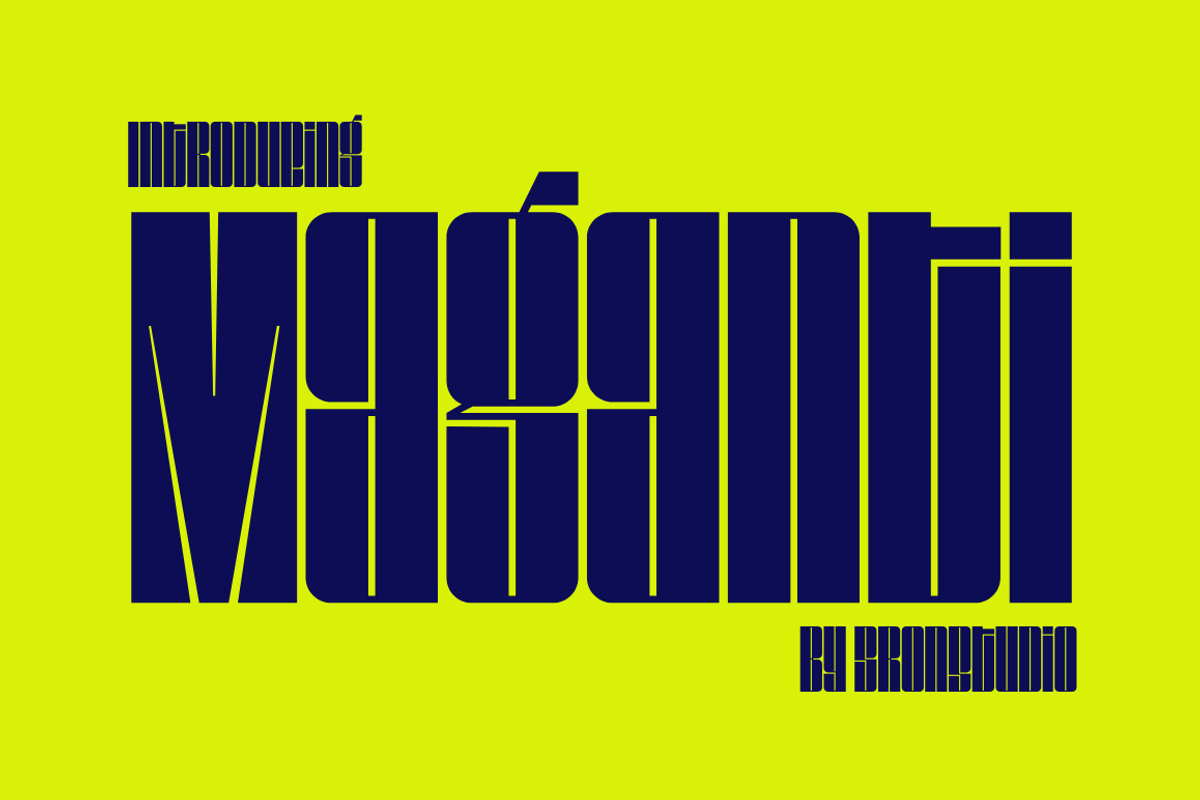
Maganti – Condensed Display Font Free Download
Maganti – Condensed Display Font Free Download is a bold, modern typeface designed to make a strong visual impact with its sleek, condensed letterforms. Perfect for headlines, posters, logos, and branding, this font brings high energy and strong personality to any design.
Its narrow design maximizes space while maintaining legibility, making it ideal for projects that require a striking yet compact font. Whether you’re creating dynamic marketing materials, event promotions, or contemporary branding, Maganti’s sharp edges and confident style ensure your message stands out.
Designers love Maganti for its versatility, sharpness, and ability to command attention without overwhelming the layout. Ready to add power and style to your design? Download Maganti – Condensed Display Font Free Download and give your next project a sleek, bold edge.